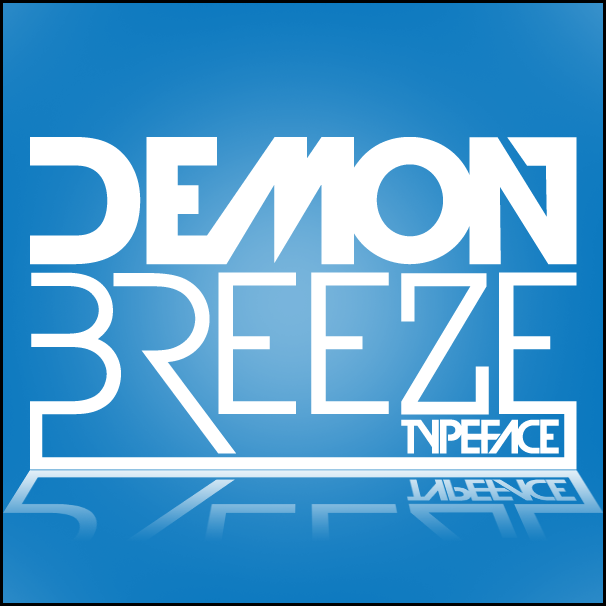
Font name: | Devil Breeze |
Author: | WesLo Fonts |
If YOU WANT TO USE THIS FONT COMMECIAL USE CONTACT ME TO WPASTRANA11@GMAIL.COM THIS FONT IS NOT FREE FOR COMMERCIAL ONLY IF YOU USE FOR PERSONAL DEVIL BREEZE..Was designed based on the variations and similarities of AVANT GARDE Typeface (created in the era of the 60s by Herb Lubalin and Tom Carnese). Suggestions,comments or if u want to donate sent to WesleyPastrana : wpastrana11@gmail.com ENJOY!!! Paypal: wpastrana11@gmail.com IF U WANT TO DONATE!!! |